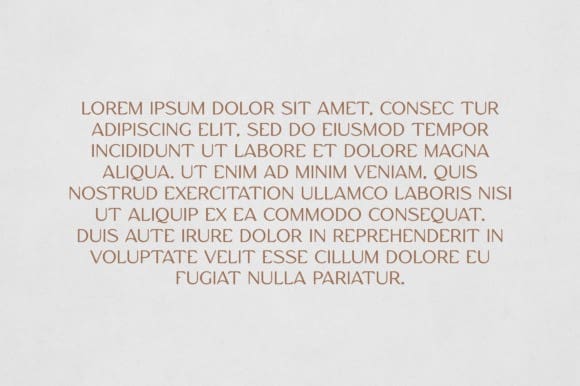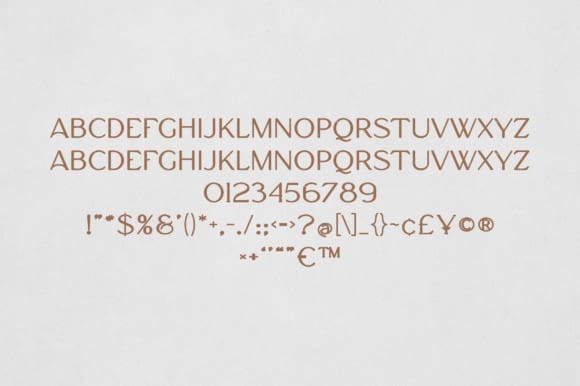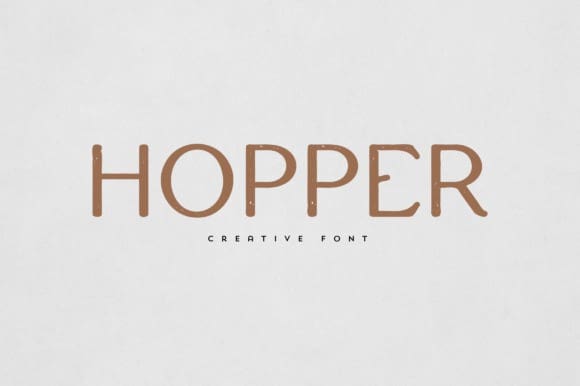
Hopper Font
Hopper Font is an elegant and versatile font that will make your typography truly unique! It will enchant every logo, branding, headline, or plain text!